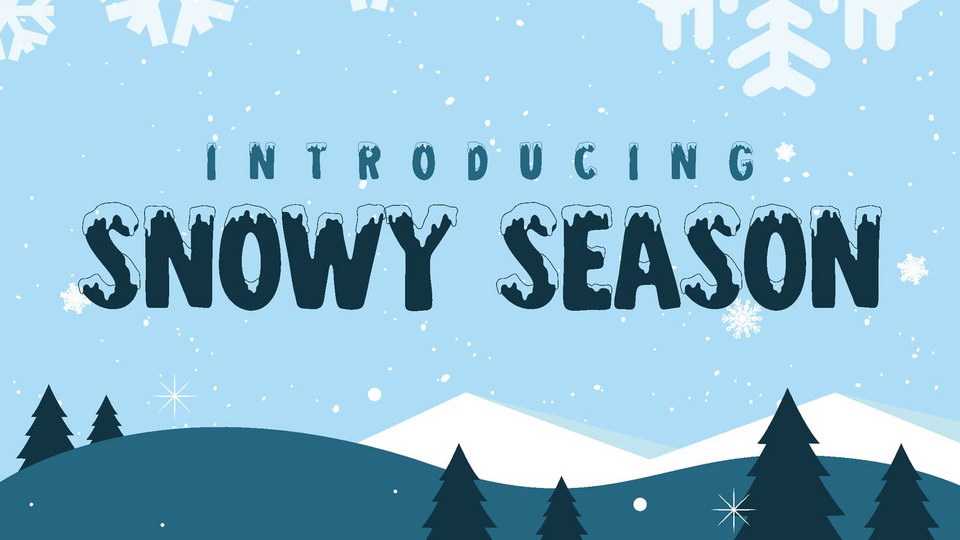
Download Snowy Season Font, a decorative winter display typeface. The joy of watching snow flakes coming down from the sky, the piles on top of everything.